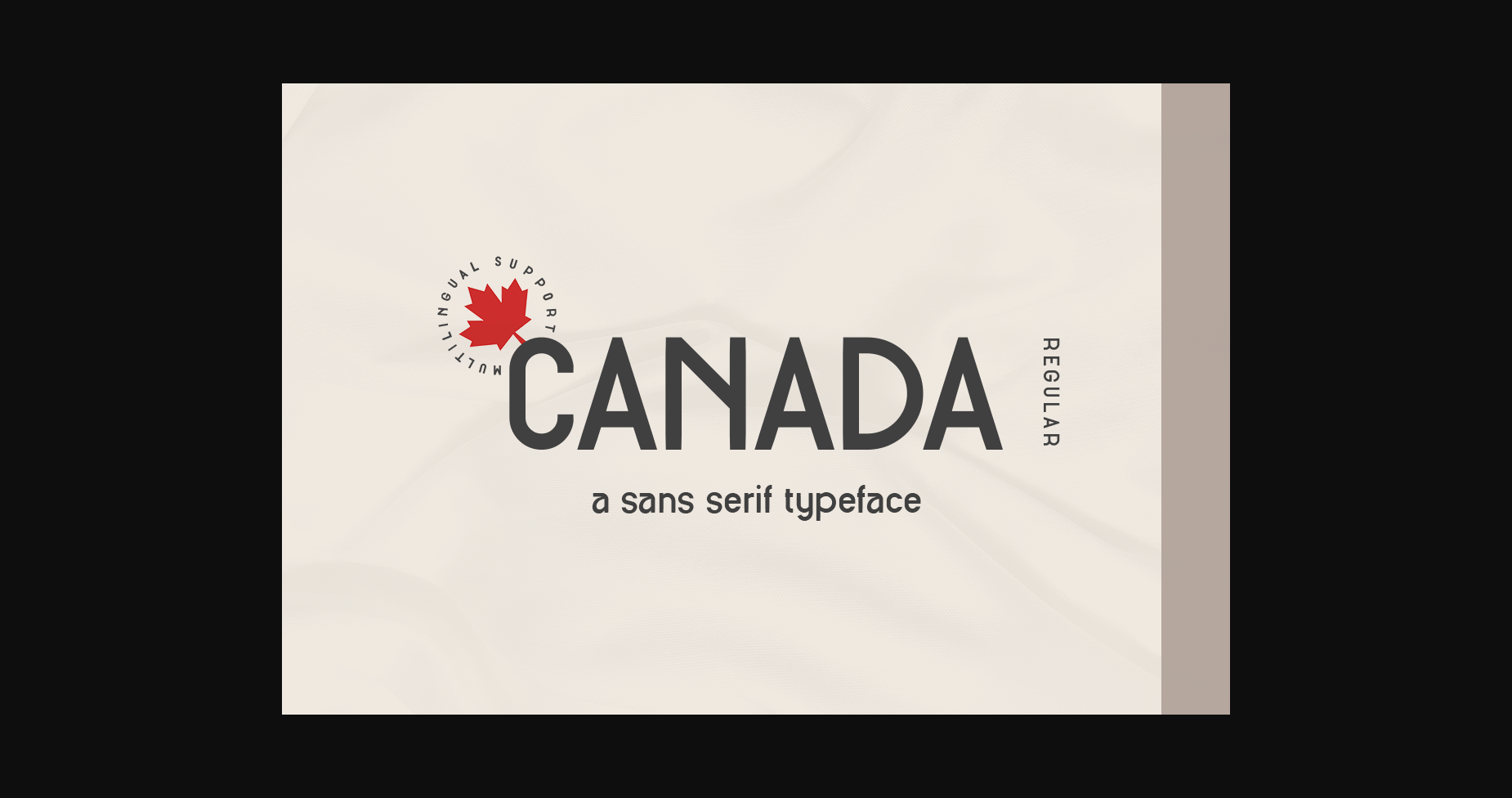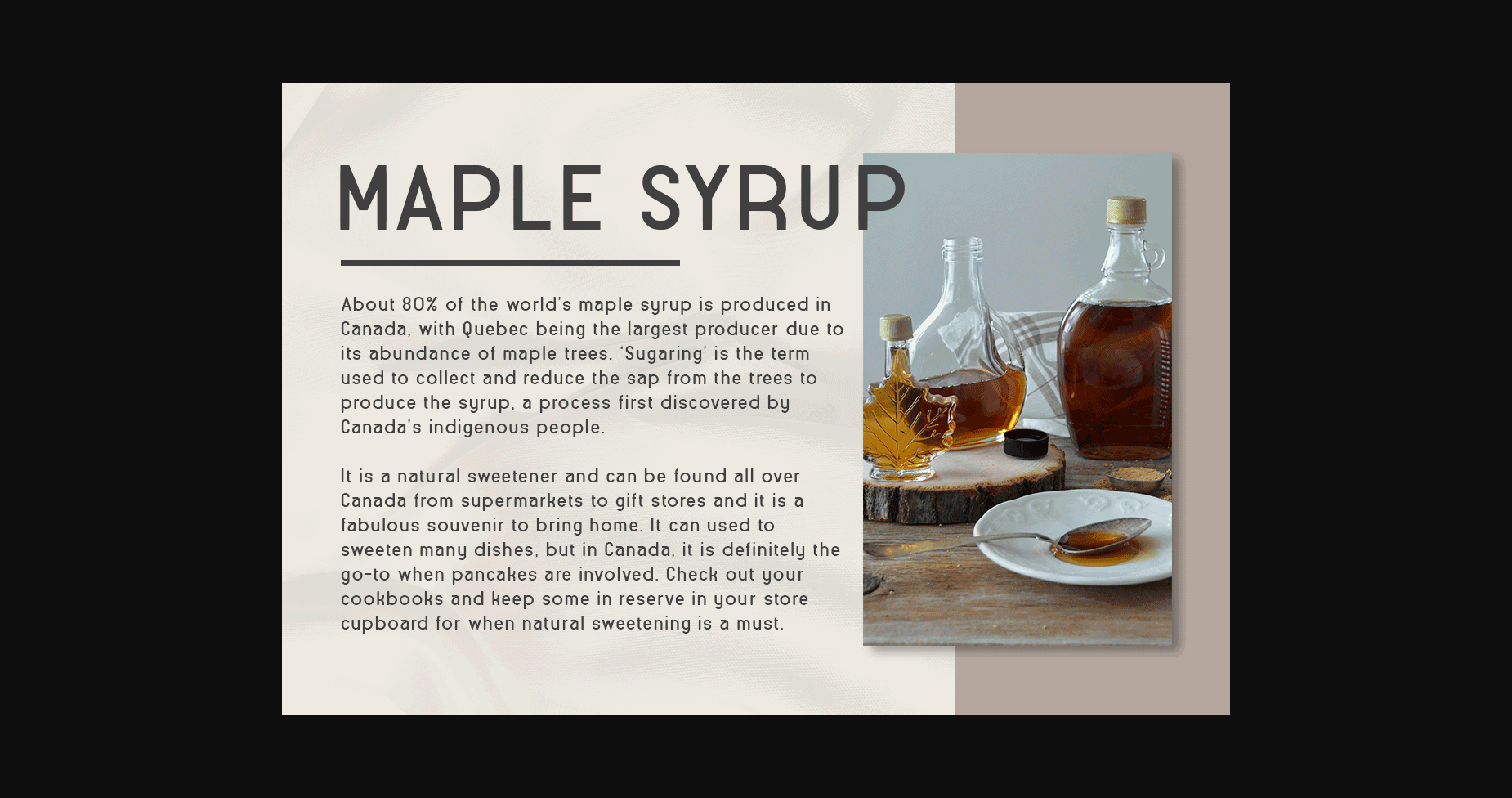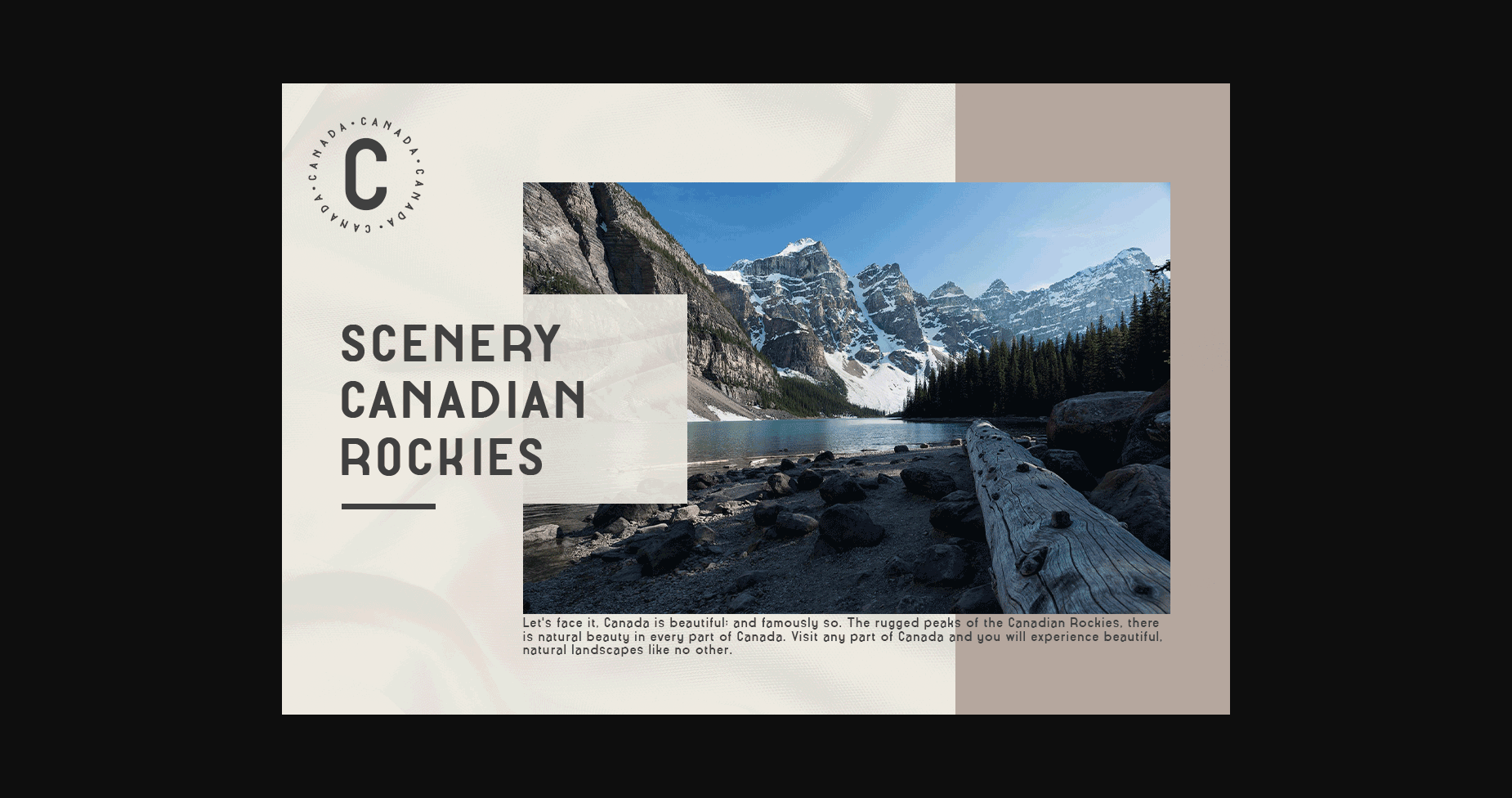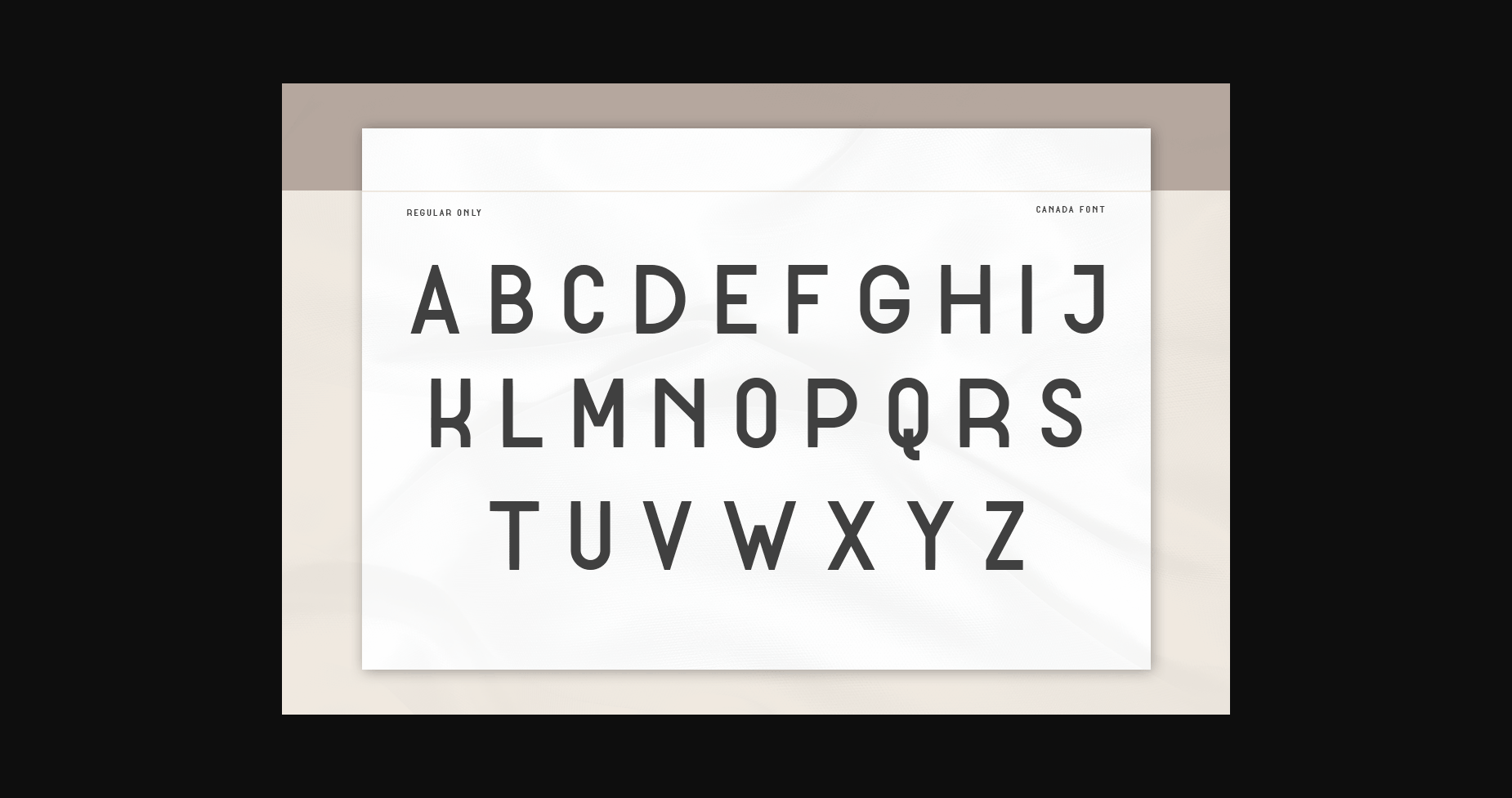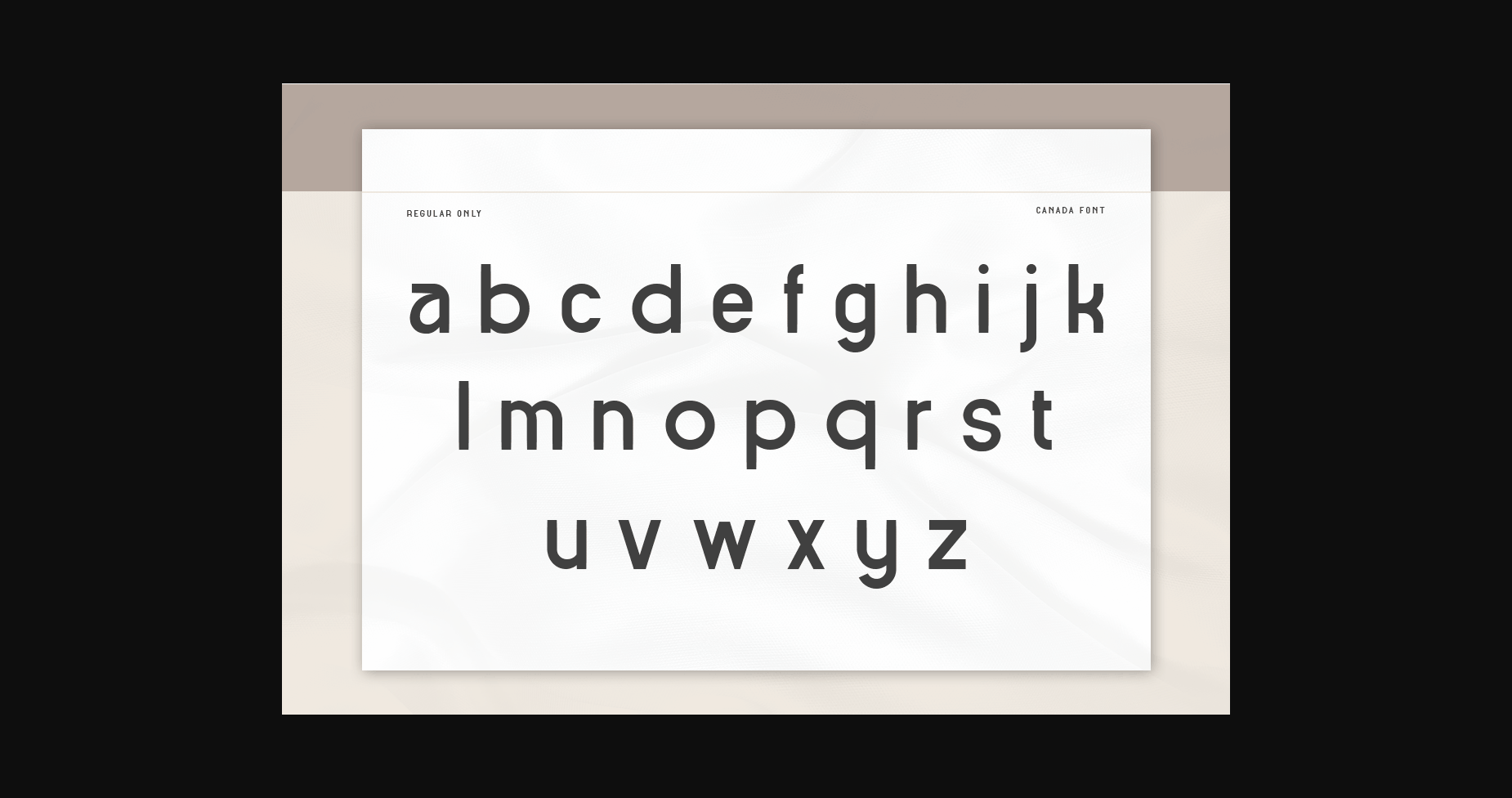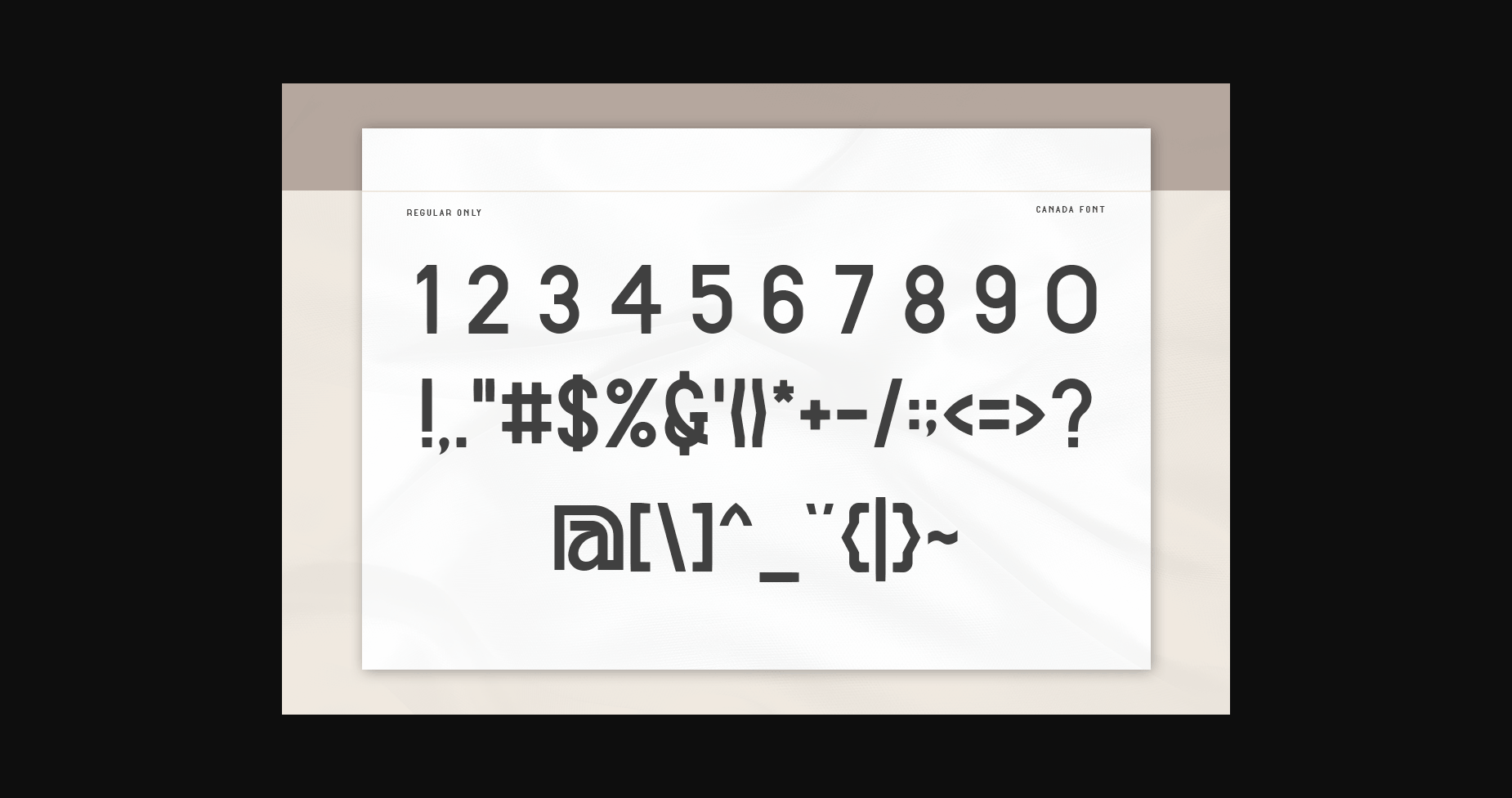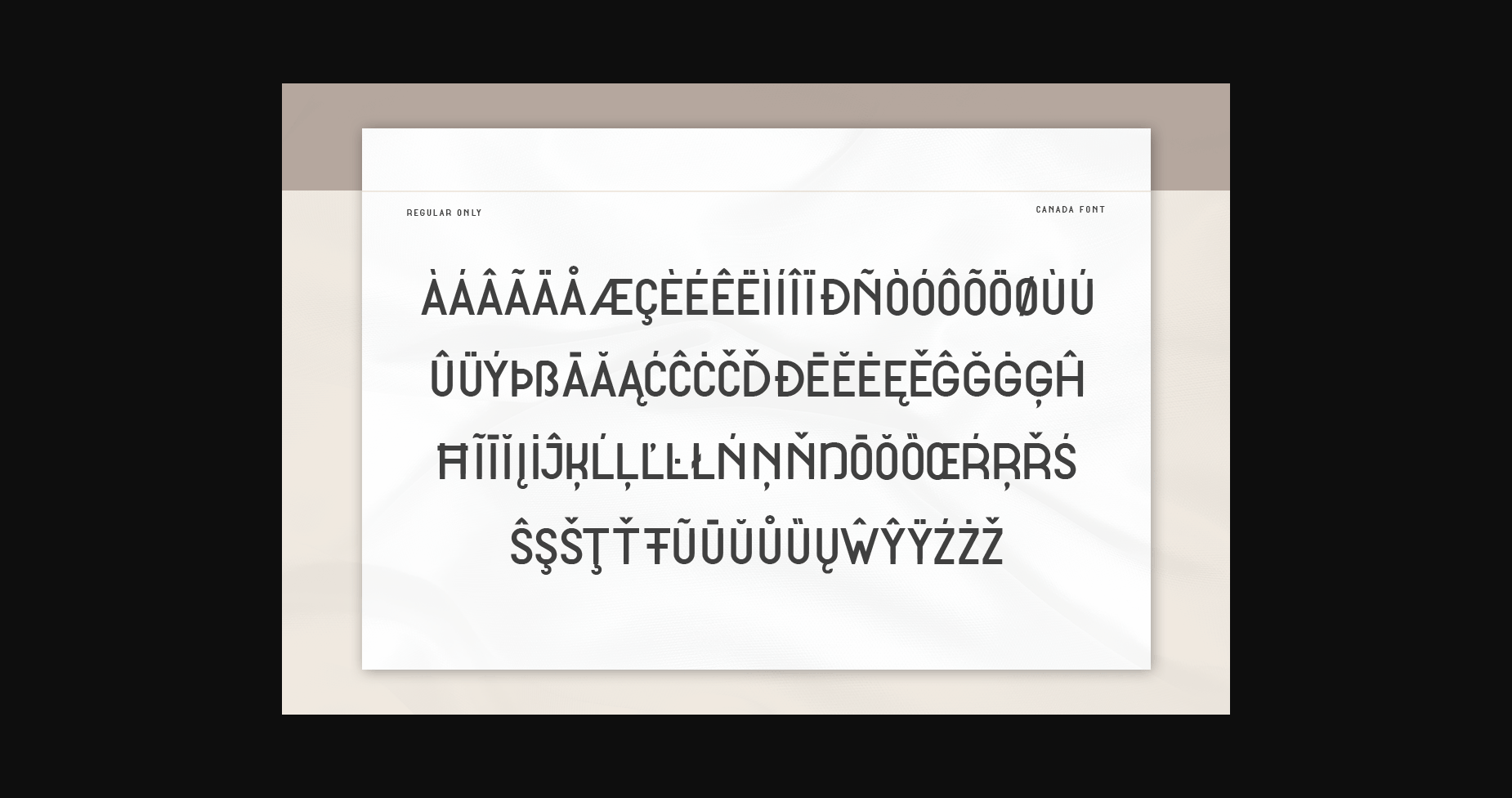
Canada Font
About Canada Font
Canada is a chic and sophisticated sans-serif font that exudes class and refinement. Its clean lines and balanced proportions make it versatile for a range of design projects, from high-end fashion magazines to luxury brand logos. With its timeless appeal, Canada is sure to elevate any design.